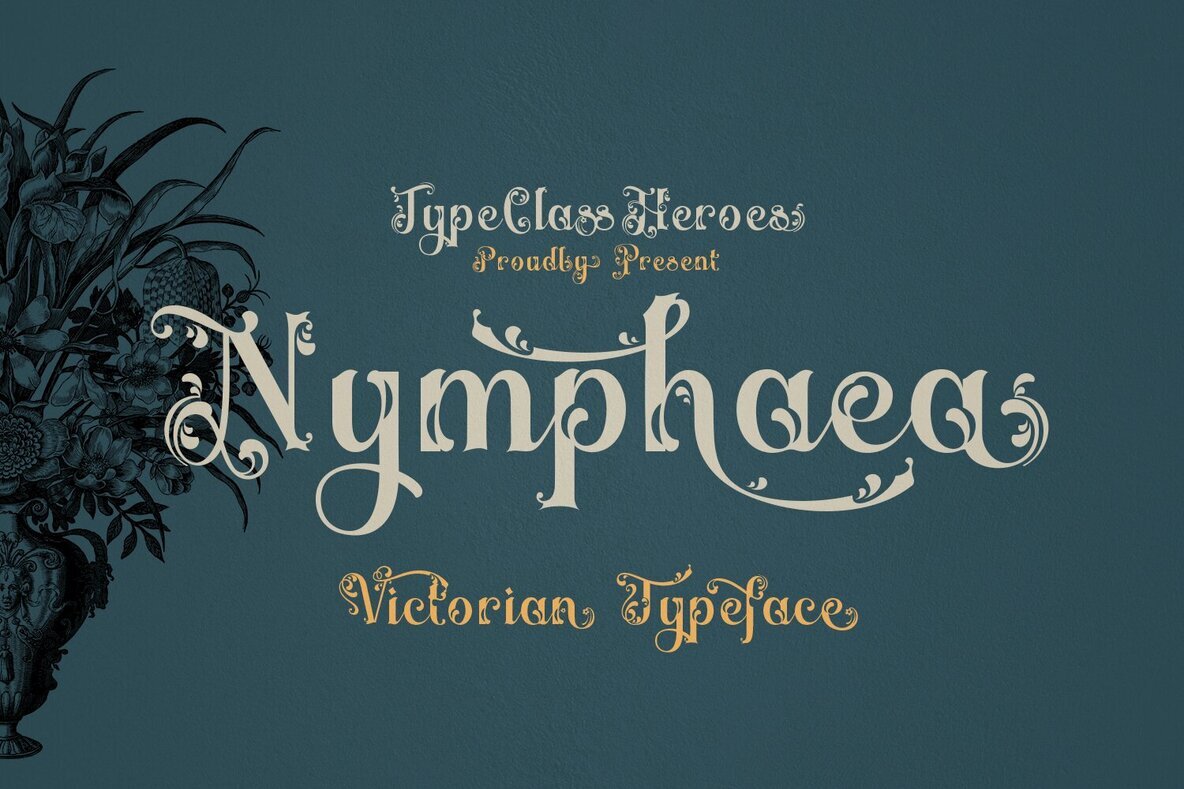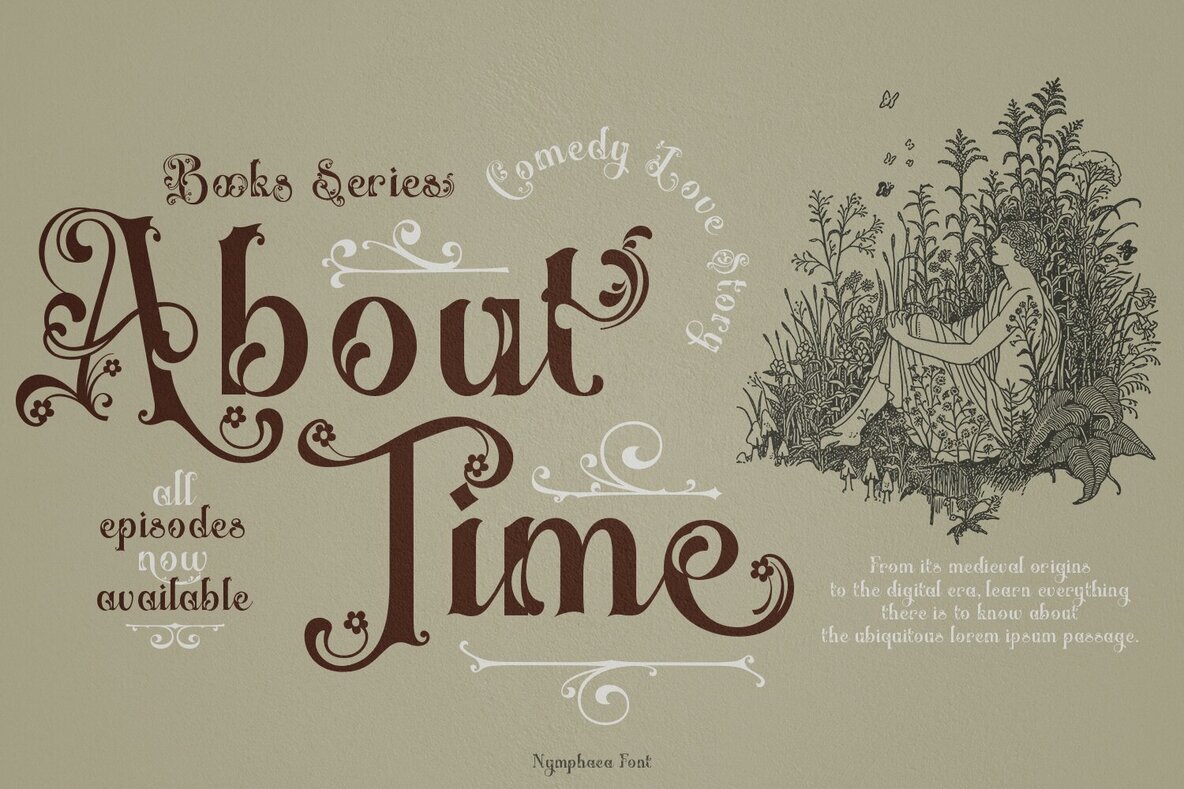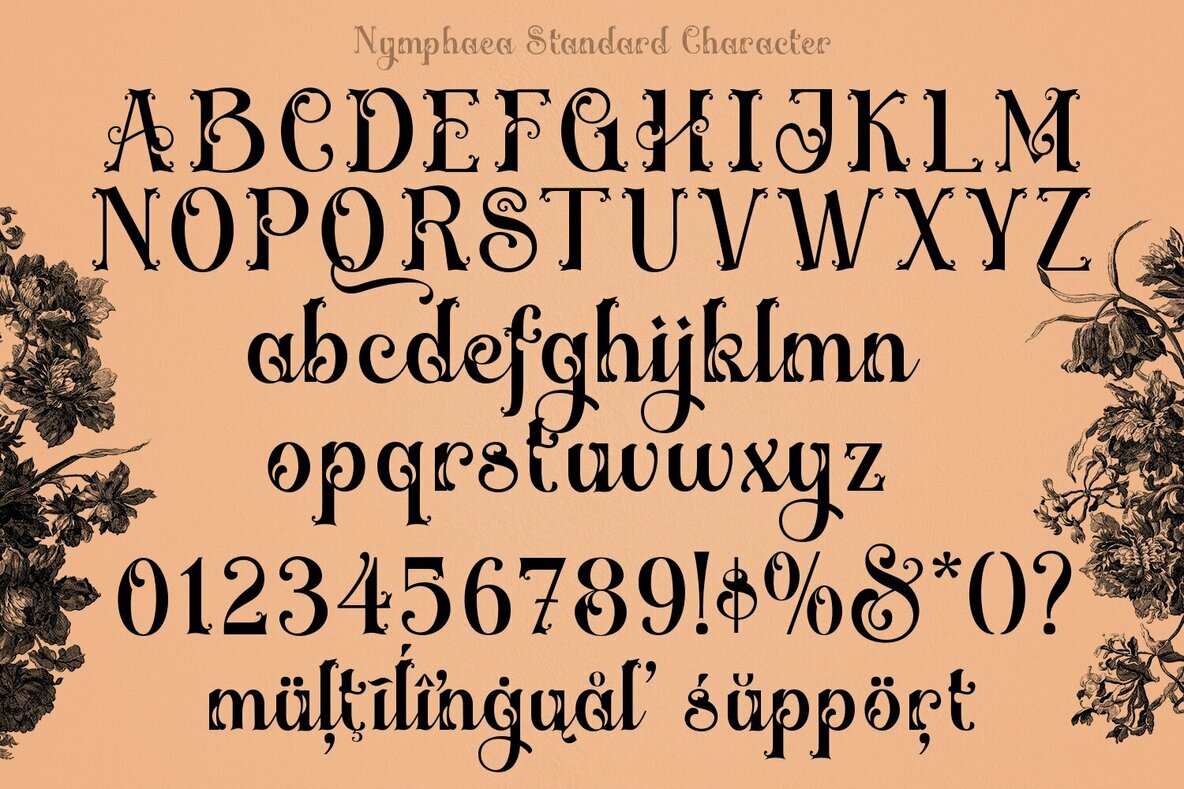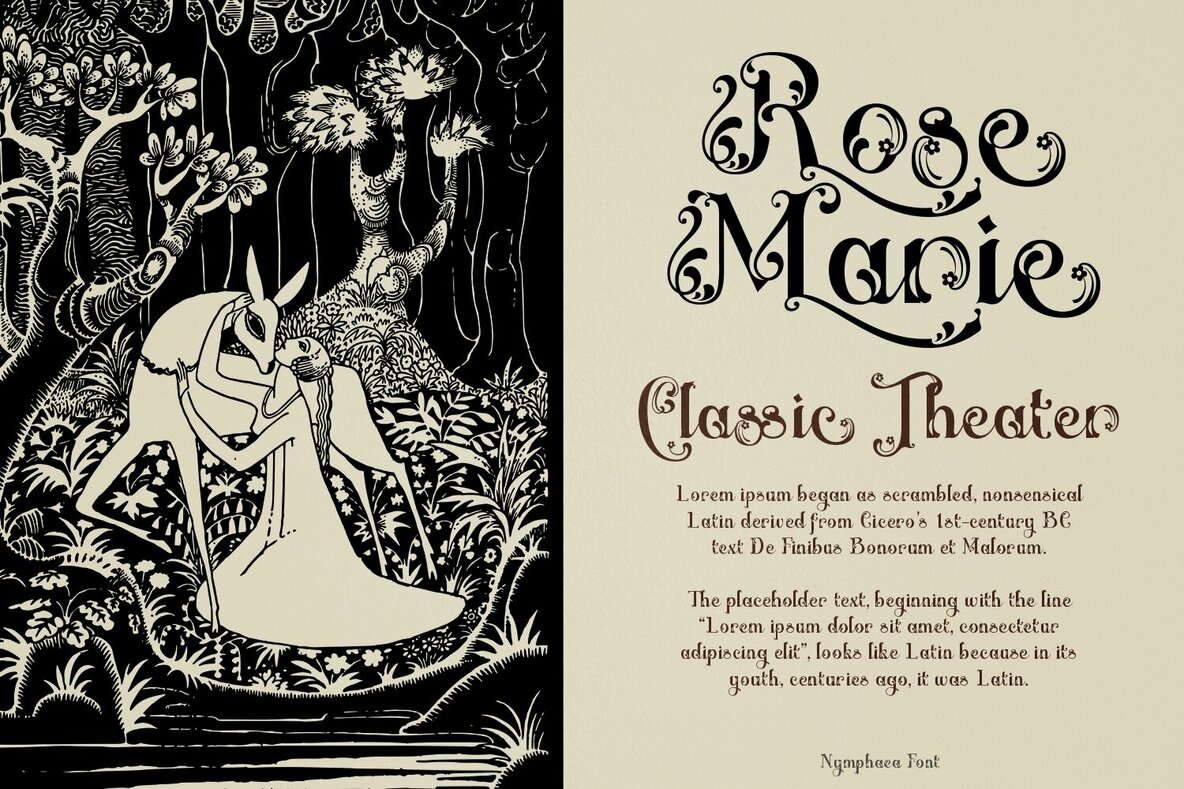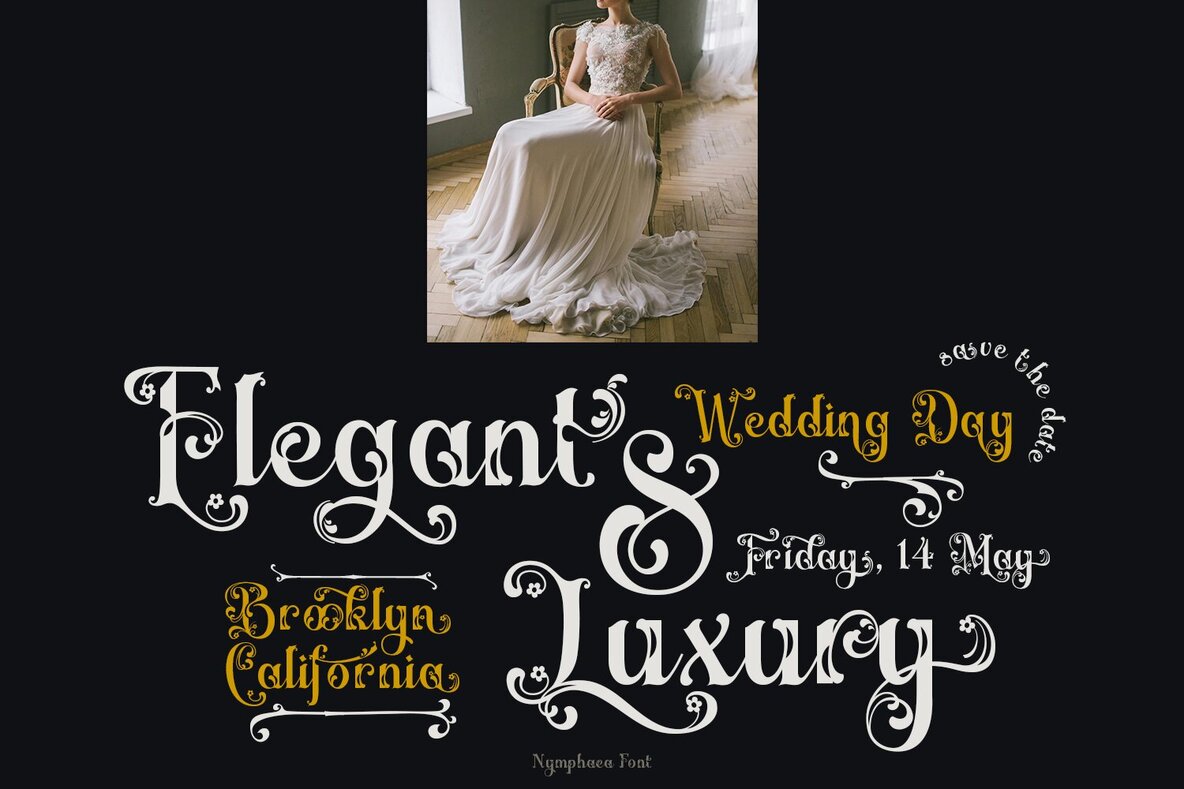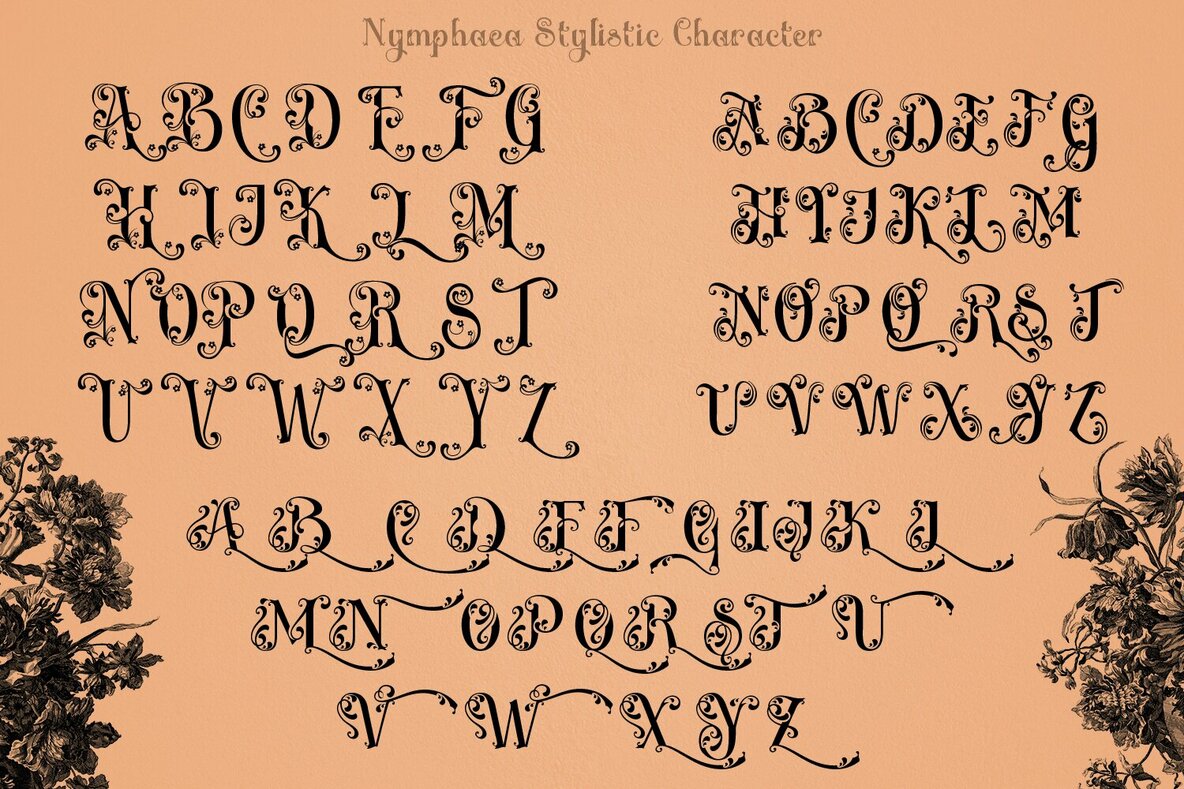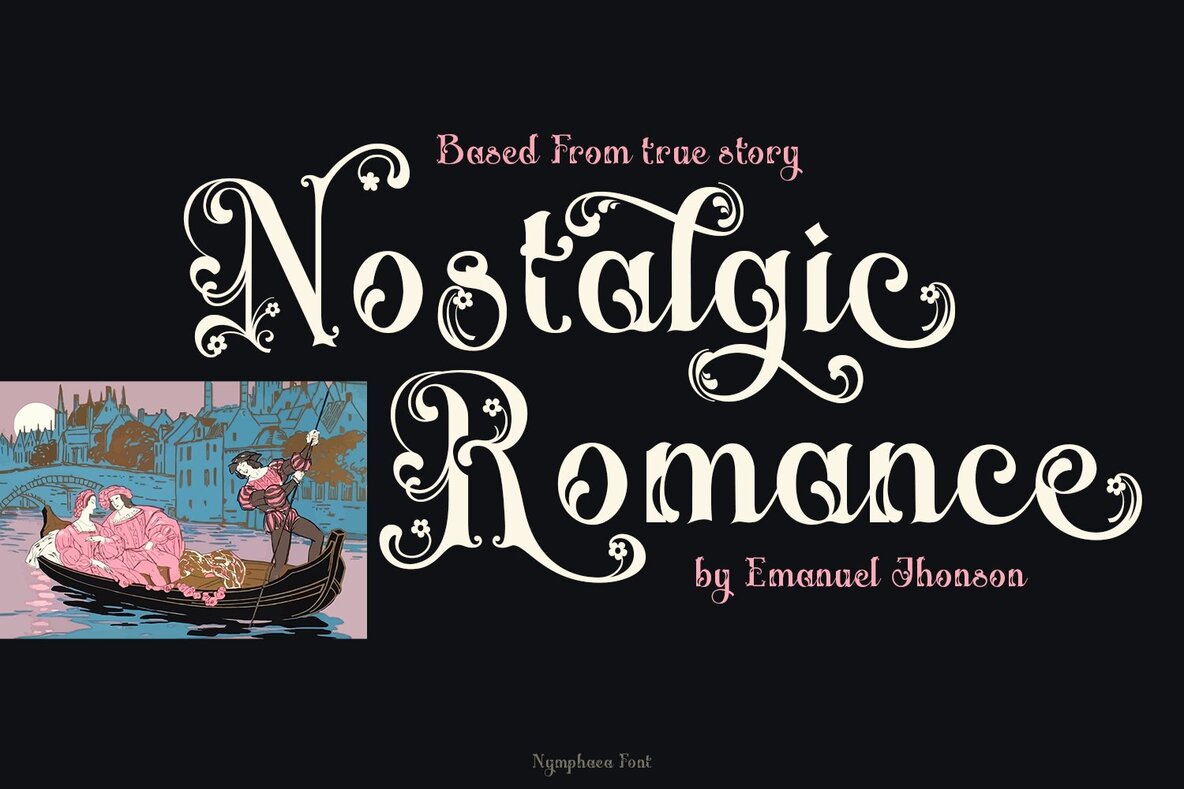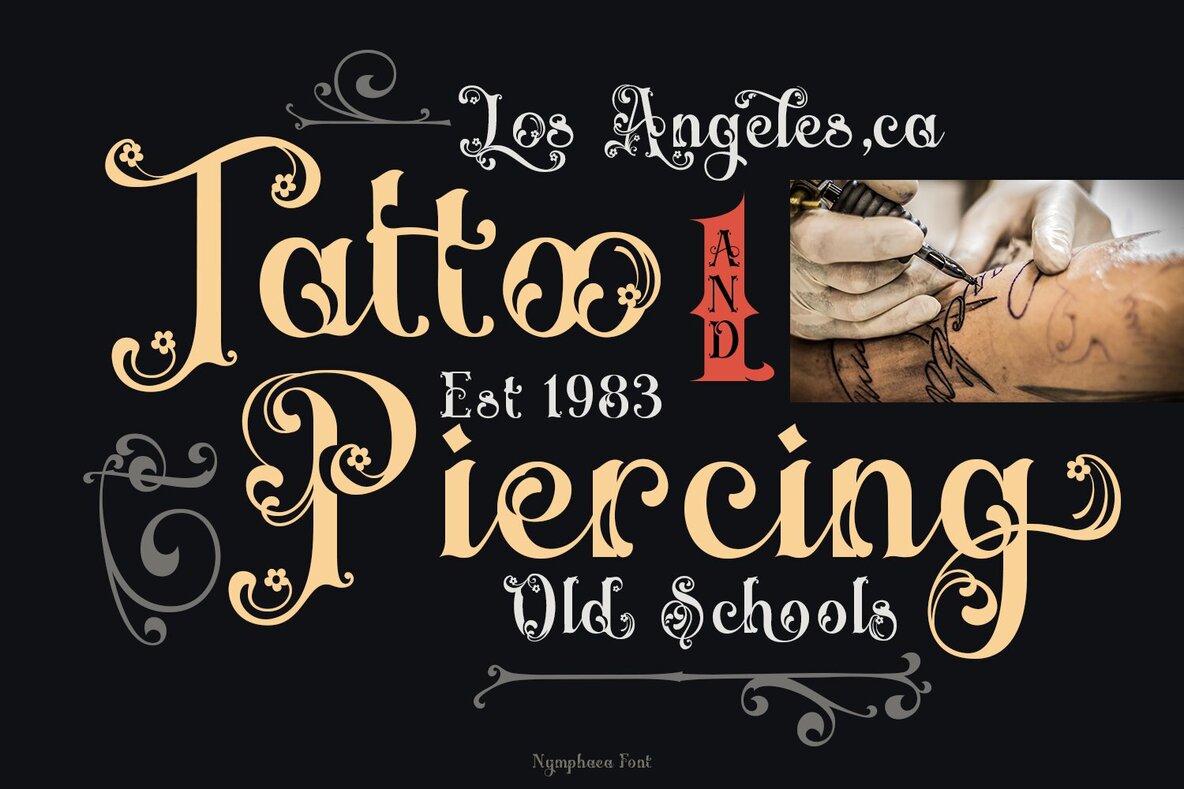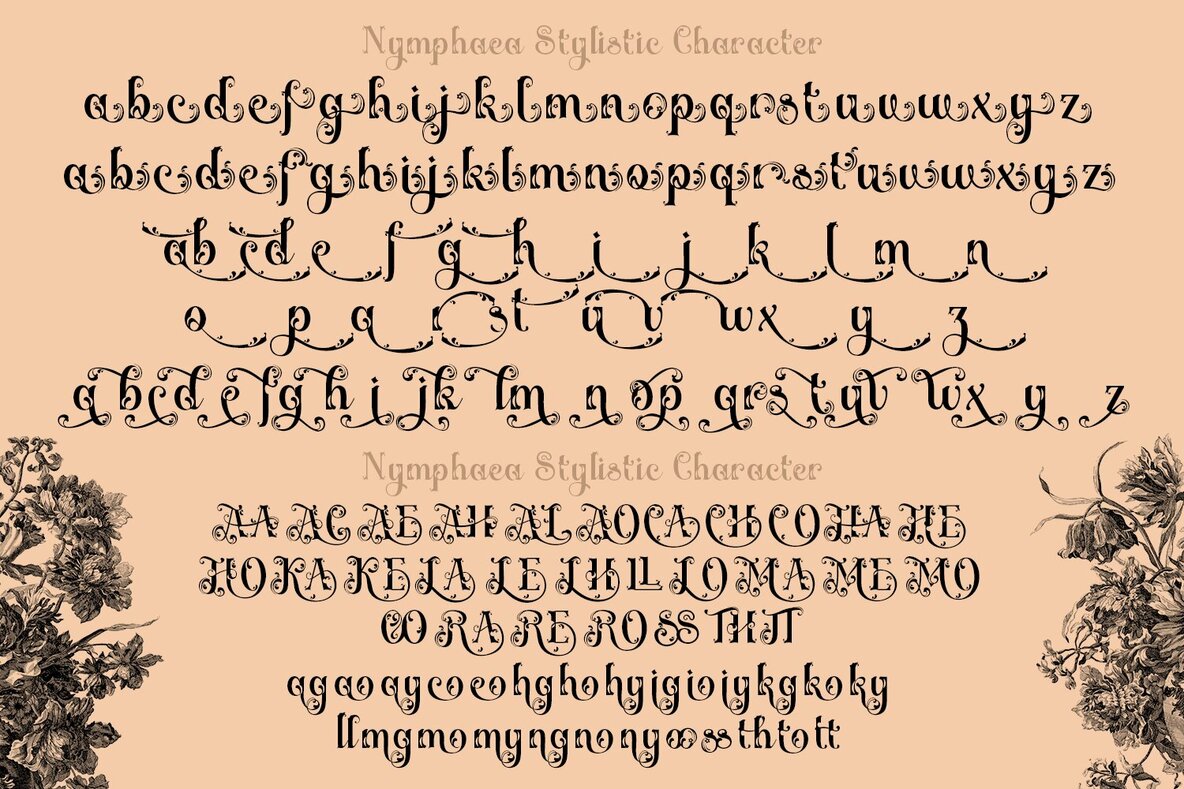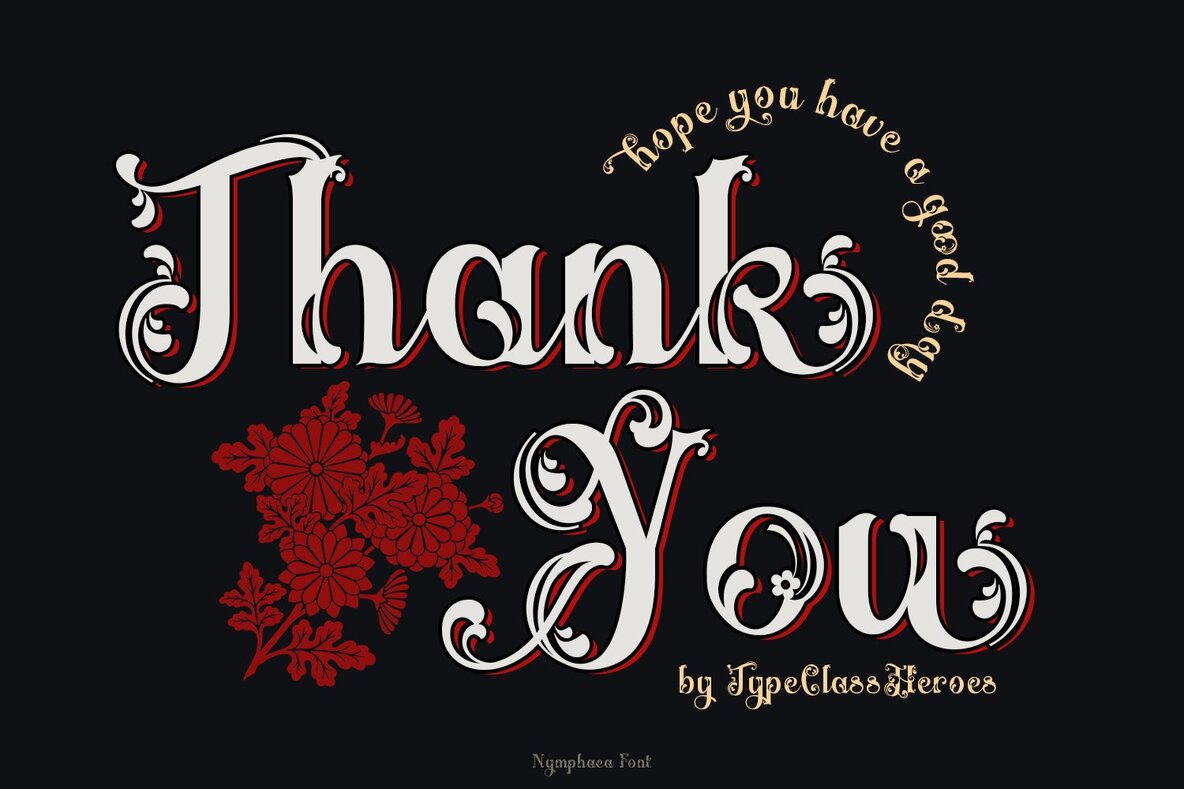
Nymphaea Victorian Font
Nymphaea Regular
Nymphaea Italic
Elevate your designs with the timeless charm of the Nymphaea Victorian typeface. This font harmonizes the elegance of the Victorian era with a modern, romantic flair. Its graceful curves and readability enhance any formal composition, adding a touch of sophistication to your work. Whether crafting digital content or printed materials, Nymphaea Victorian ensures elegance and clarity in every glyph, turning simple words into breathtaking statements.Nymphaea Victorian Typeface
Perfect for Formal Creations